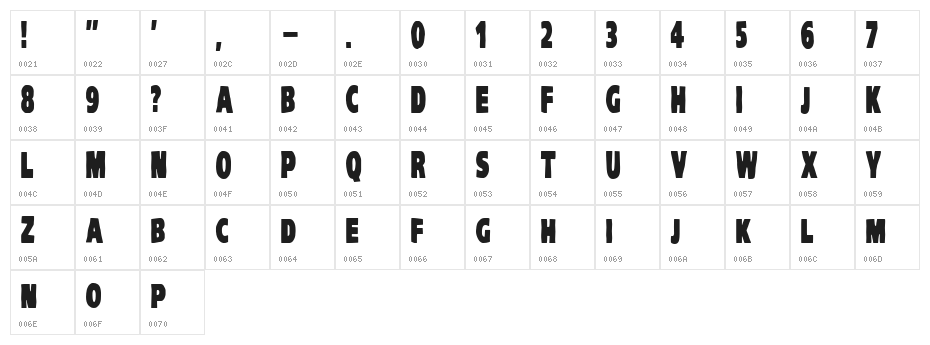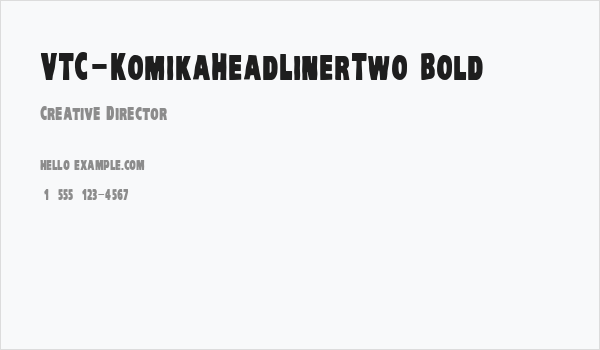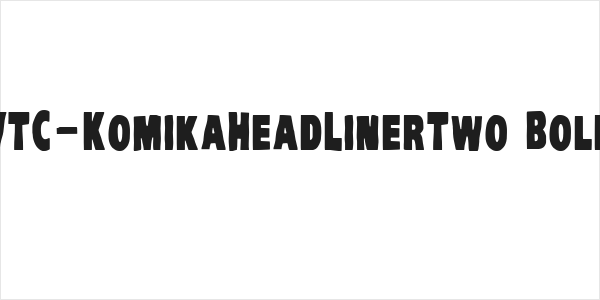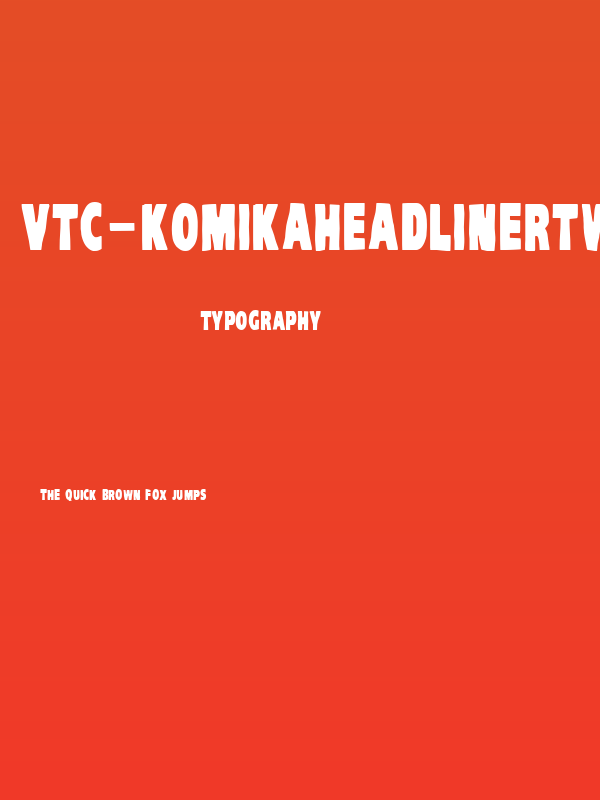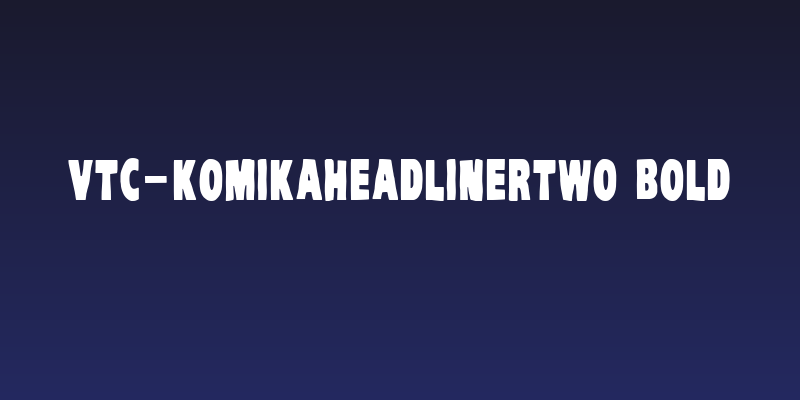
VTC-KomikaHeadLinerTwo Bold Font
VTC-KomikaHeadLinerTwo Bold Description
This bold, decorative font features thick, blocky characters with a playful and cartoonish style. The uppercase letters are prominent and eye-catching, making them ideal for headlines or titles. The numbers and special characters maintain the same boldness and playful design, ensuring consistency across all text elements. The font's unique style is characterized by its exaggerated curves and slightly irregular shapes, giving it a hand-drawn appearance. This adds a sense of whimsy and fun, making it suitable for creative projects that require a lively and engaging typeface.
| Overall Style | Playful, Cartoonish, Decorative |
| Proposed Projects | Ideal for comic books, children's books, posters, and playful branding projects. |